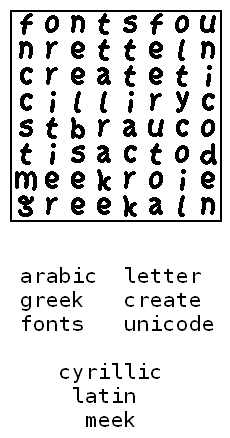
• Based on fs crossword. . = wall for right side of crossword , = wall for top of crossword - = black block for crosswords ? = empty block for crossword space = blank block : = wall for left side of word search ; = wall for bottom of word search lowercase = letter without frame shift + number = number without frame And some additional characters, not included in fs crossword: _ = wall for upper right corner of crossword À to ò = numbered blocks for crosswords
The crossword says 'cirriryc' not 'cyrillic'
@digitalio its backwards